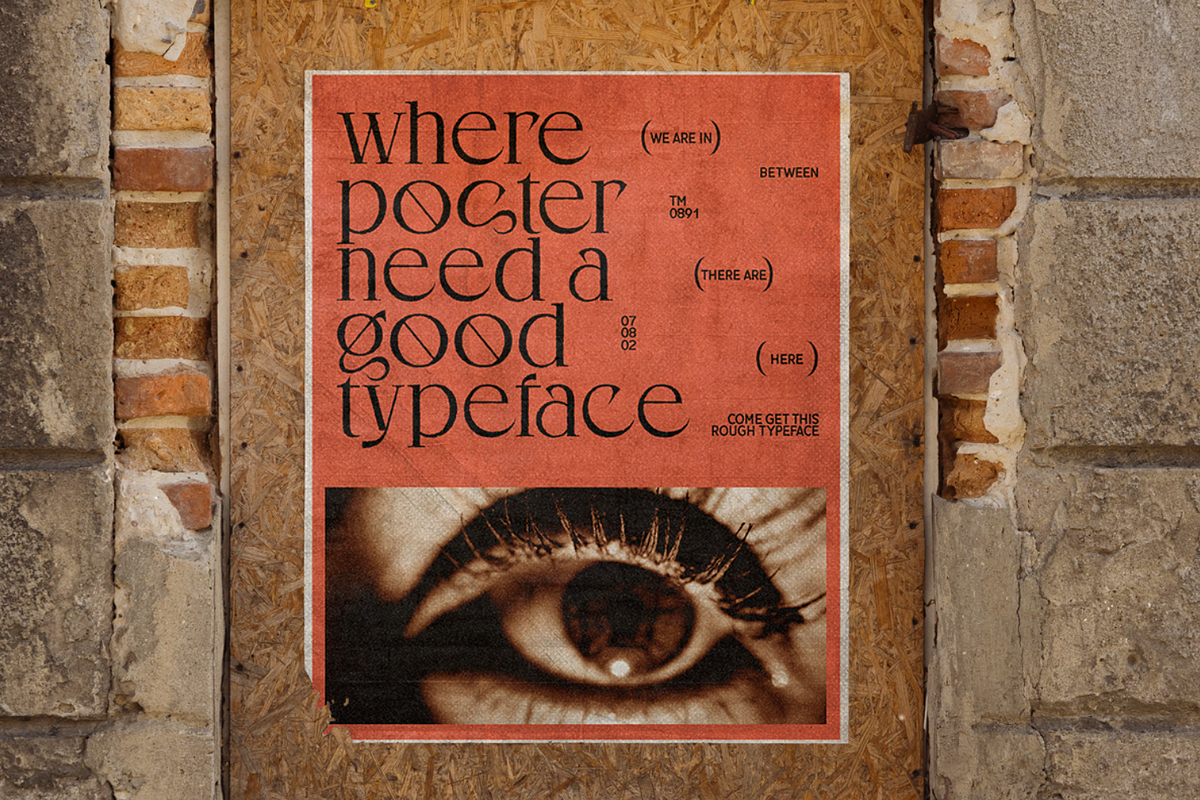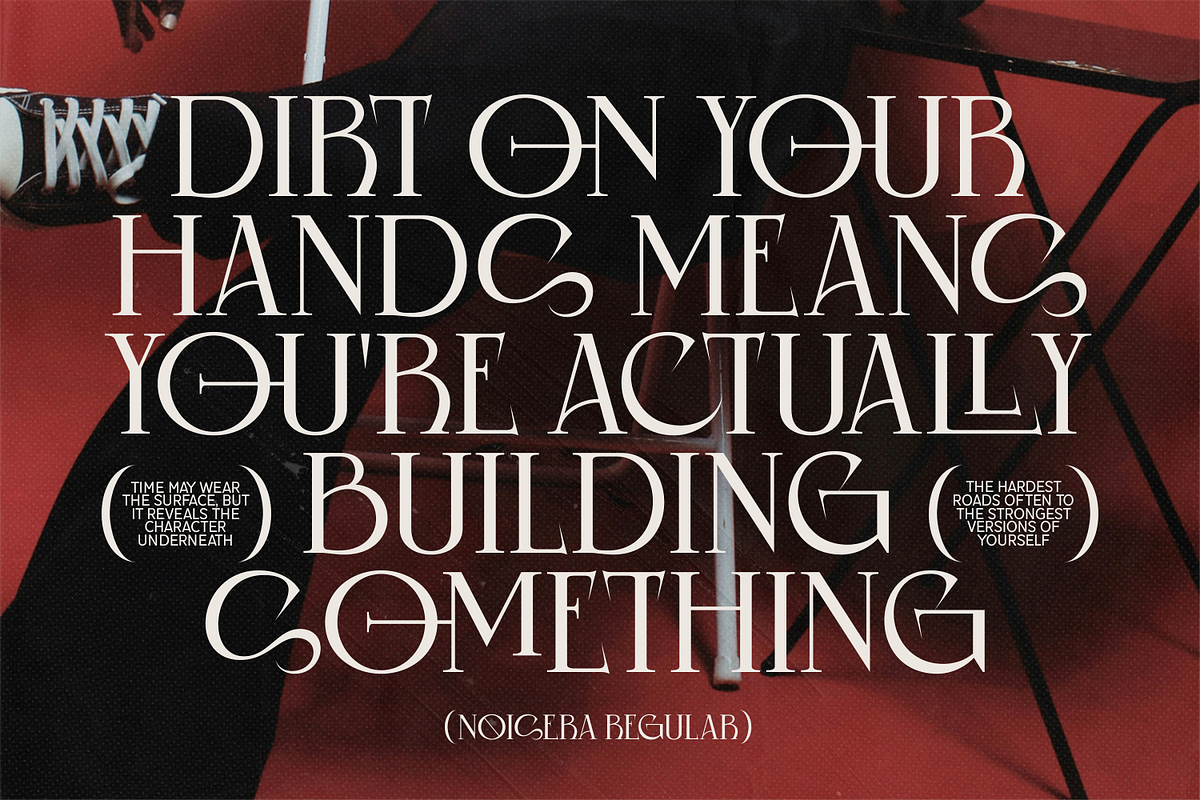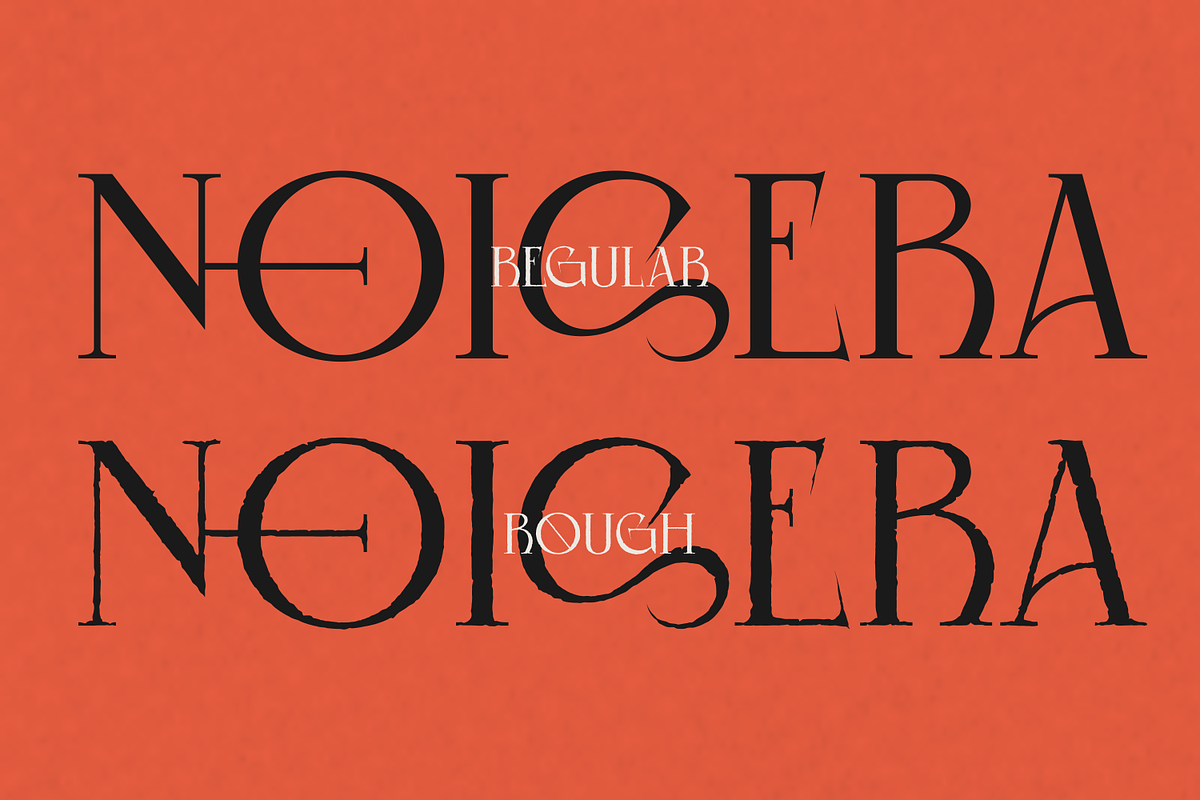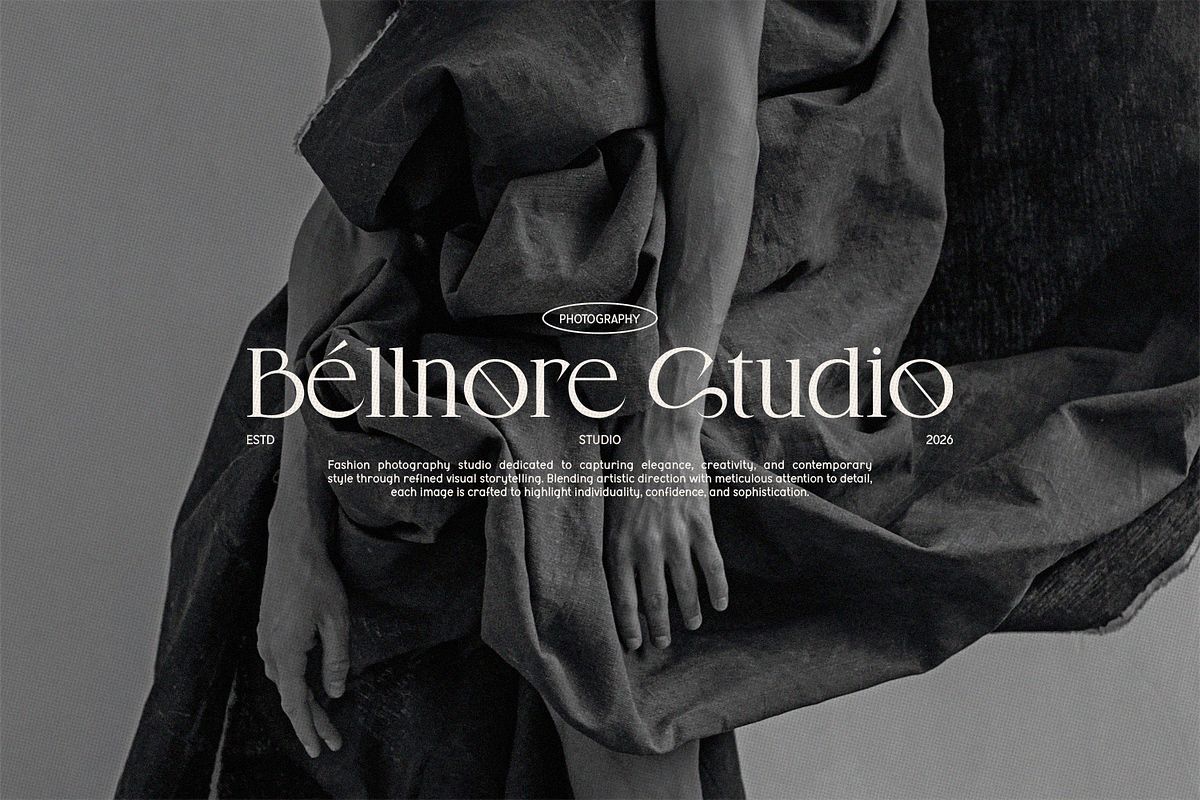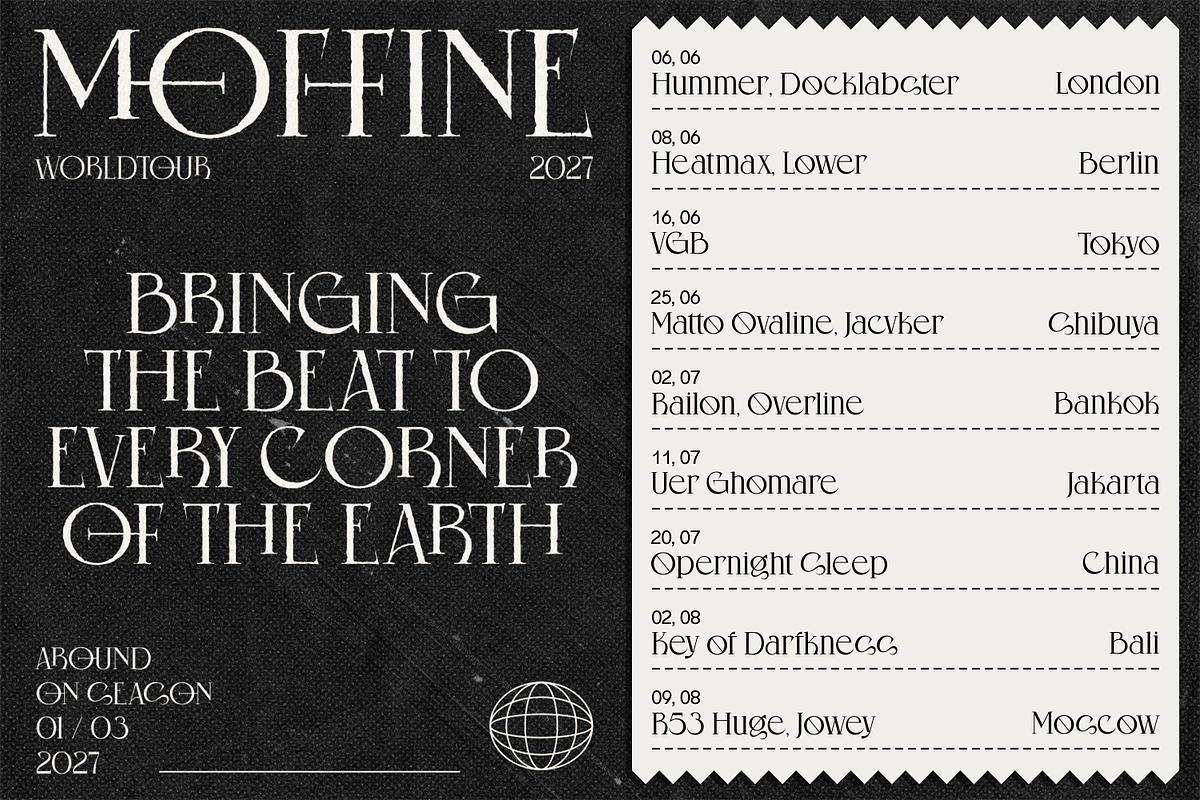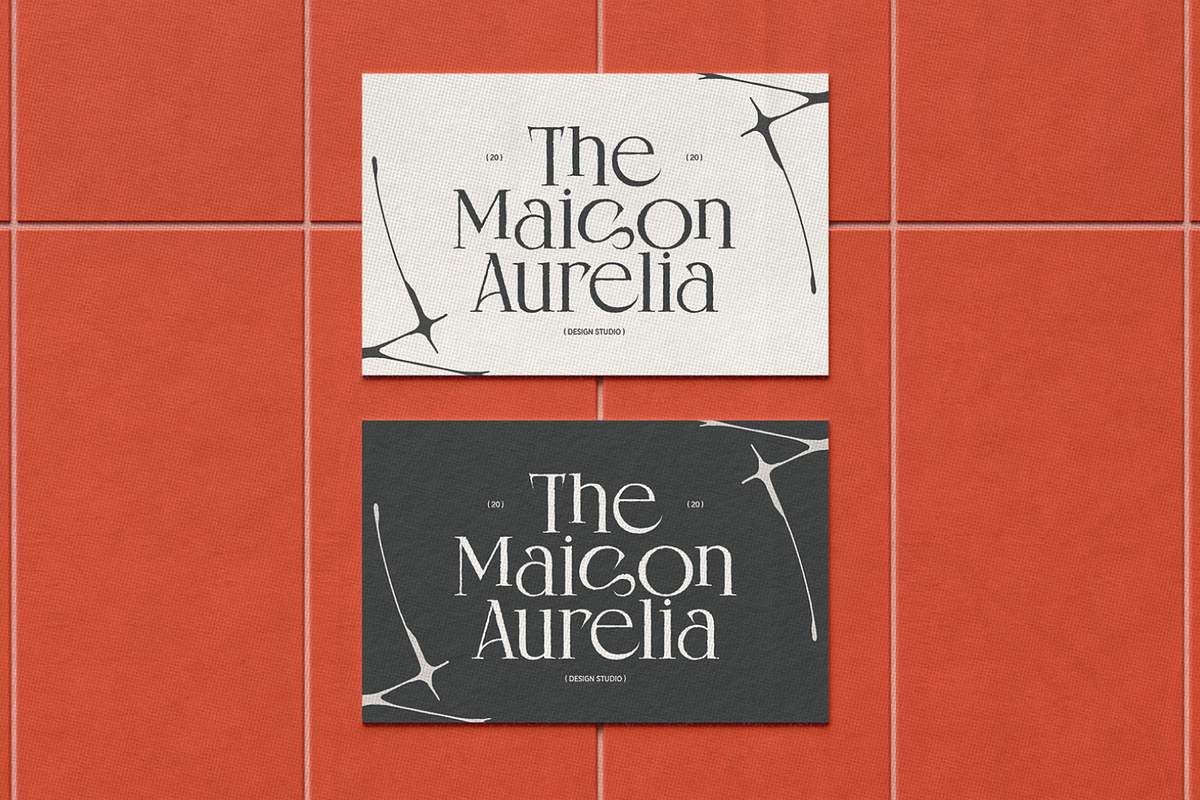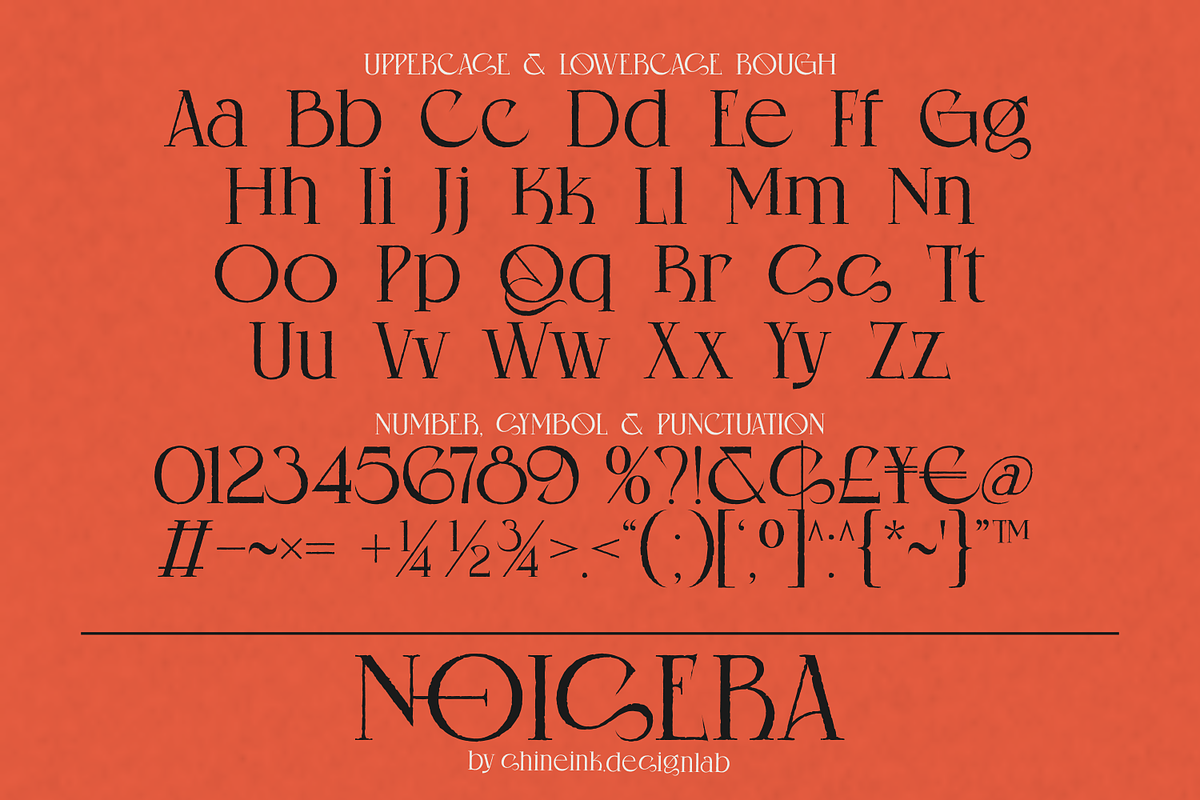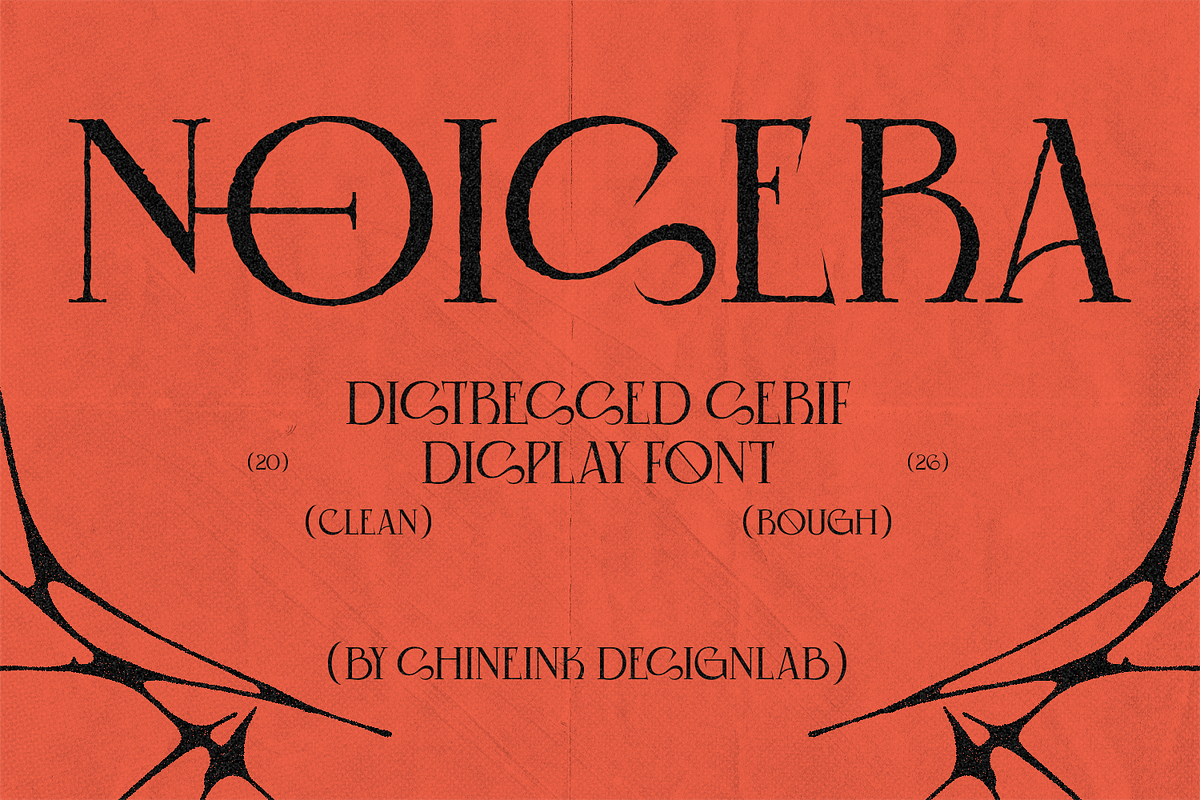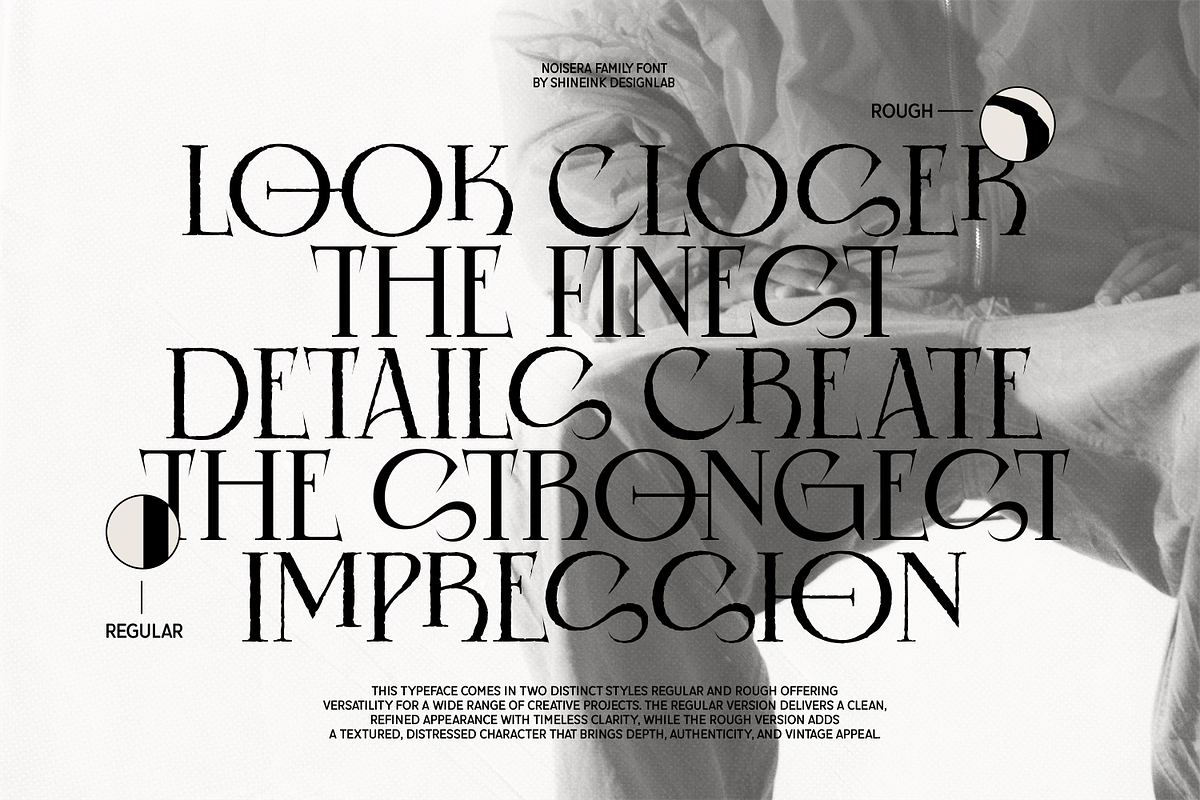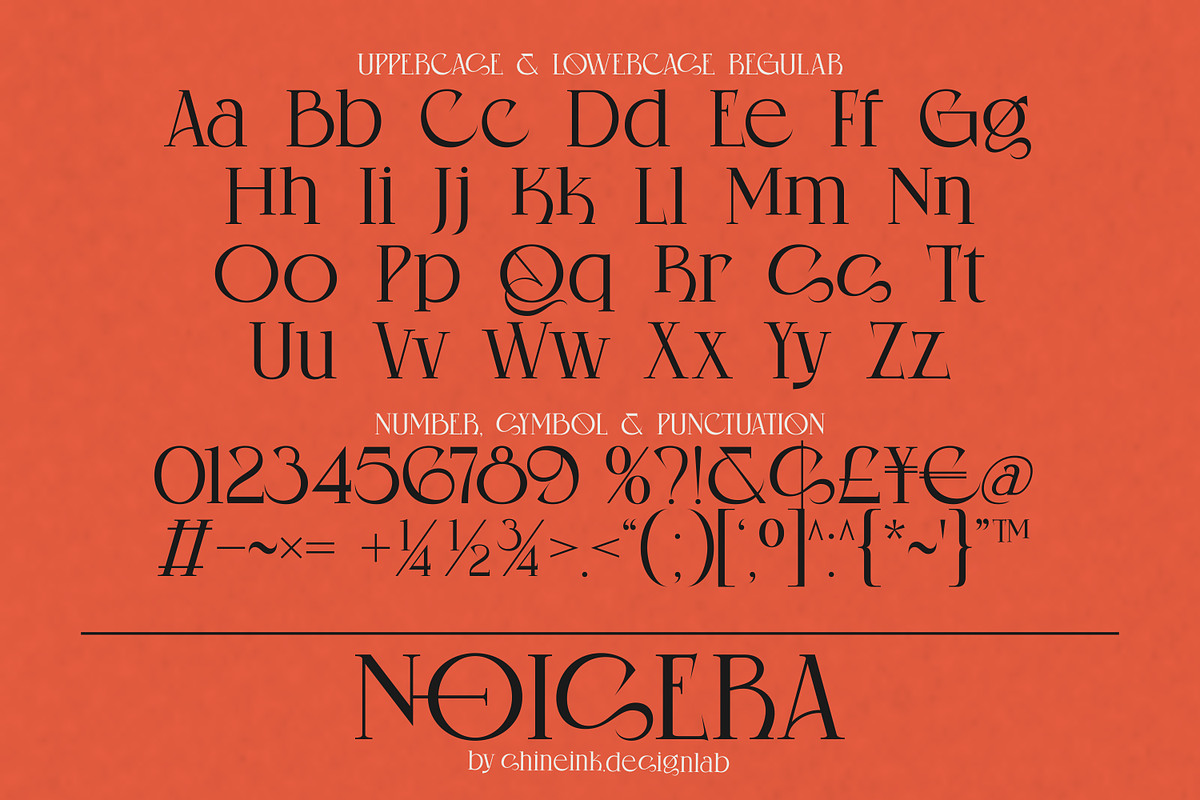
Noisera - Distressed Serif Font
I'm present to you, Distressed Serif Display Font called Noisera!
Noisera is a distinctive distressed serif display font crafted to bring together vintage character, editorial sophistication, and modern artistic expression. Inspired by aged letterpress prints, antique book typography, gothic elegance, and luxury editorial design, NOISERA delivers a bold visual presence that instantly captures attention.
Featuring dramatic serif structures, handcrafted distressed details, and expressive letterforms, NOISERA was designed for creatives who want more than just another serif font. Every character carries subtle imperfections that evoke the authenticity of worn ink, weathered paper, and traditional printmaking techniques while maintaining a refined and premium appearance.
NOISERA includes two carefully crafted styles: Clean and Rough. The Clean version serves as the regular style, offering a polished and elegant appearance ideal for luxury branding, editorial layouts, logos, and sophisticated design projects. The Rough version introduces authentic distressed textures inspired by aged prints and weathered surfaces, adding depth, character, and a handcrafted feel to your typography. Together, these styles provide exceptional flexibility, allowing you to move seamlessly between refined elegance and vintage expression while maintaining a cohesive visual identity.
Unlike ordinary distressed fonts that often sacrifice readability, NOISERA carefully balances texture and clarity, allowing designers to create memorable headlines, striking logos, and sophisticated branding with confidence.
Whether you're working on luxury branding, fashion editorials, book covers, premium packaging, album artwork, or cinematic poster designs, NOISERA adds a timeless sense of craftsmanship and personality to every project.